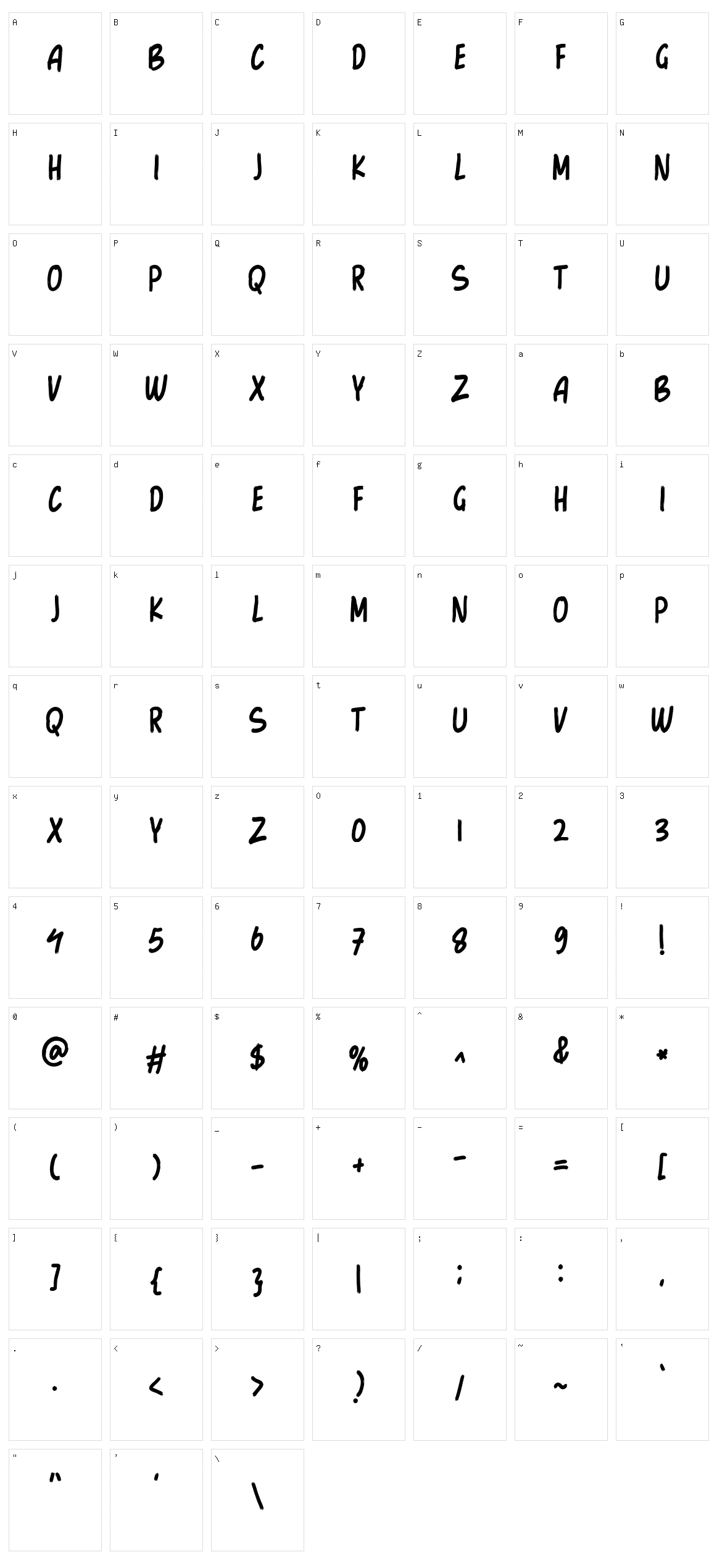
The free font GoodBoom is carefully designed by Vultype, showcasing a thoughtful balance of creativity and usability and falls under the Script font style. When you download the ZIP file, it contains only 247.71 KB of font files, making it lightweight and quick to download. Please review the license details below to understand permitted usage and distribution rights. If license information is not available, we recommend using this font for personal projects only or contacting the author directly for commercial usage permissions.